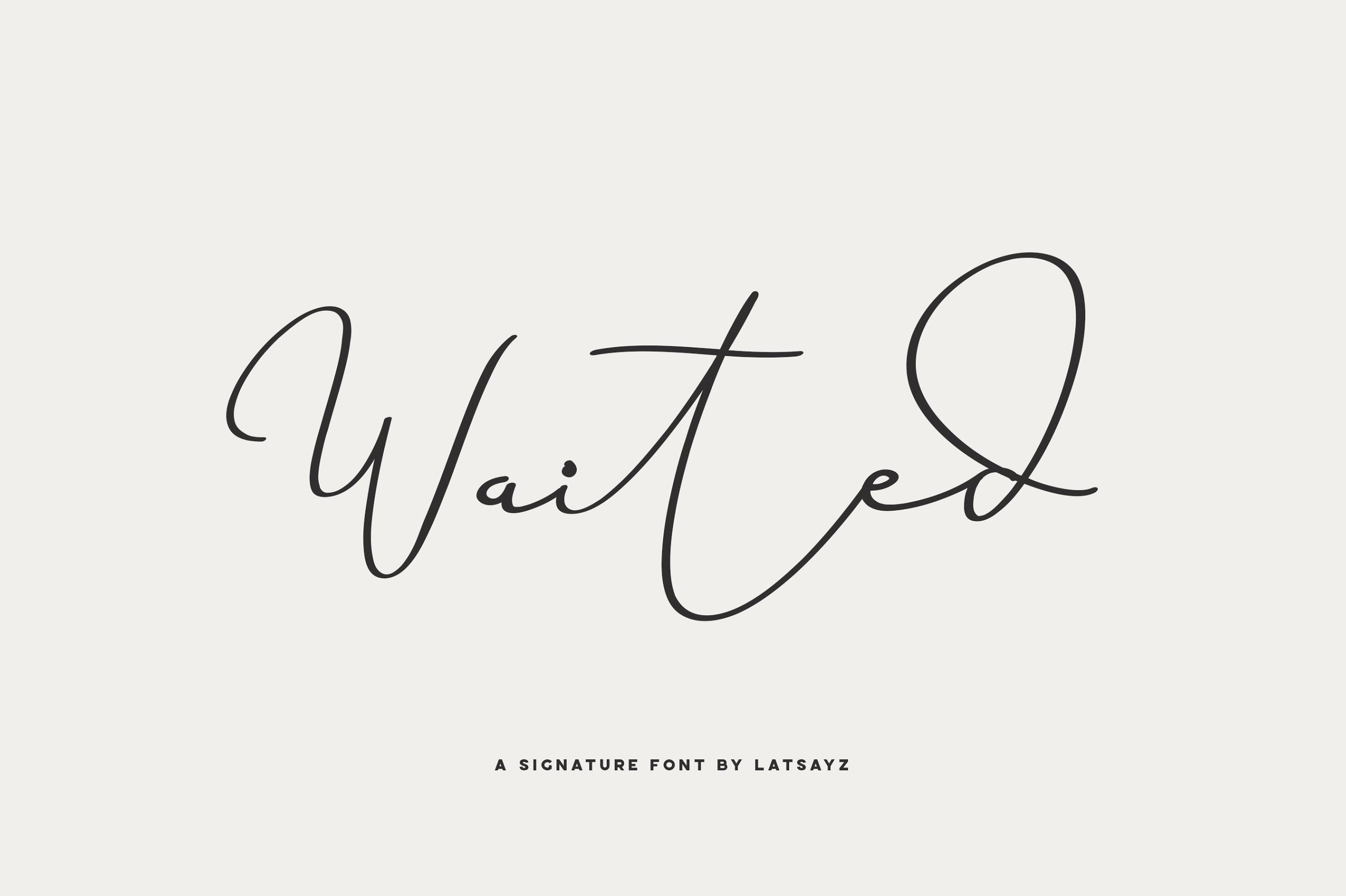
Miss Waited Signature Font
This is a signature font classy, fun, free compilation expressive and cool script inspired by a luxury fashion. Contemporary handwriting fonts with ligatures and alternative styles ready to add unique look and bloom on your design. Introducing Miss Waited Font. Miss Waited Signature Font – a modern fancy signature typeface perfect for your next project. Miss Waited great for wedding, event, invitation, escort card, table number, header menus, display, logos, slider blog, custom address, stamps, packaging, greeting card, etc.